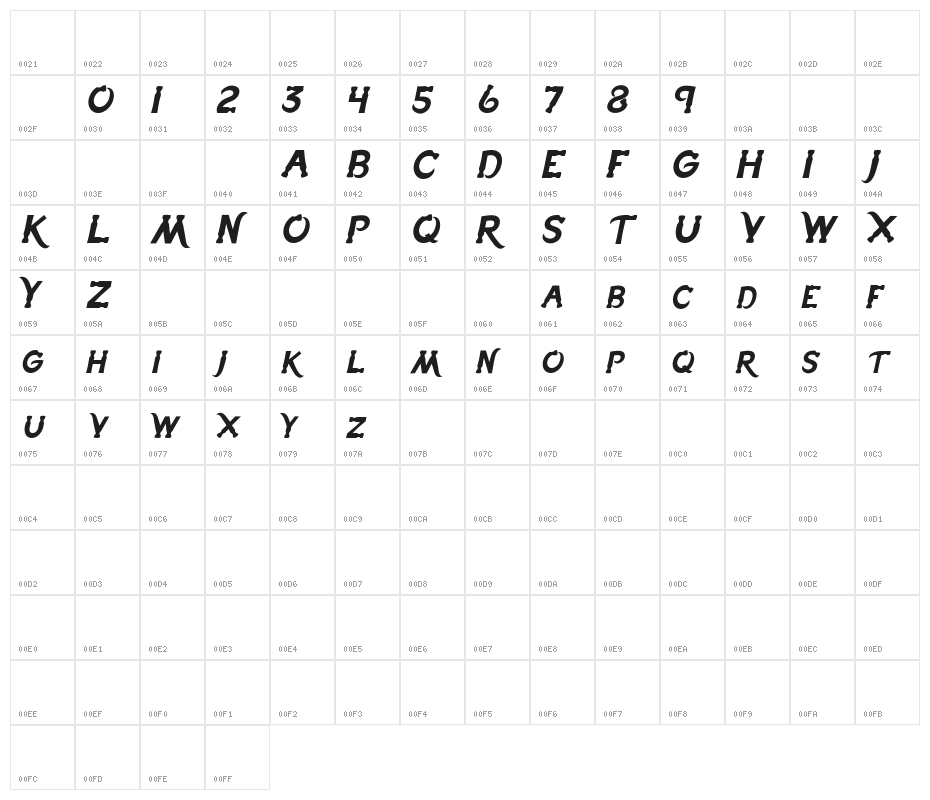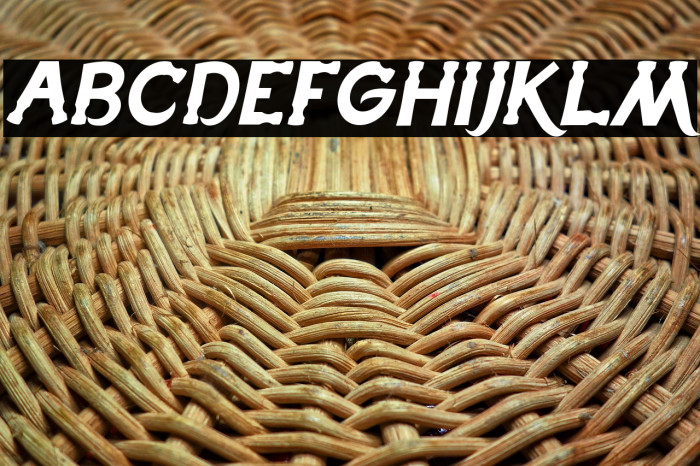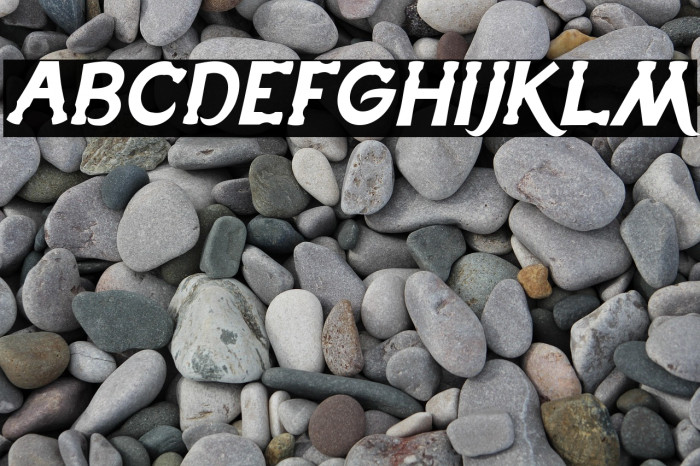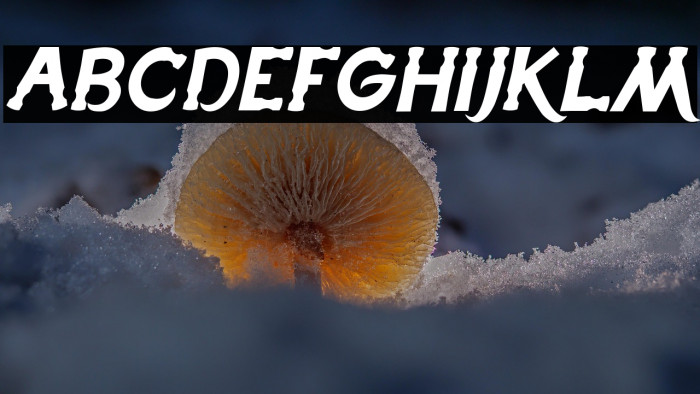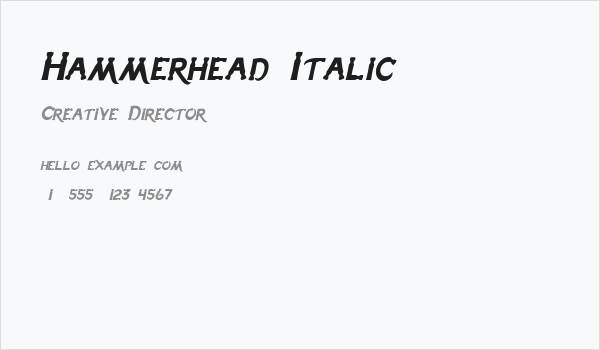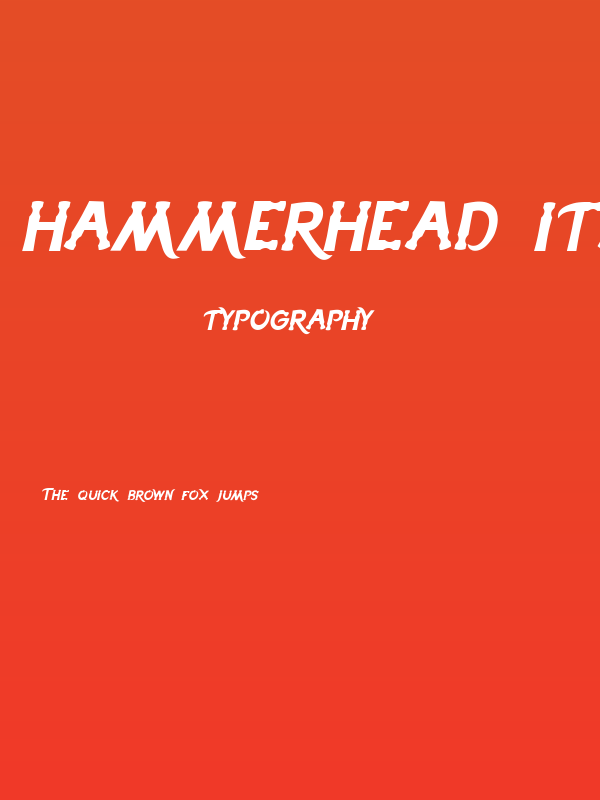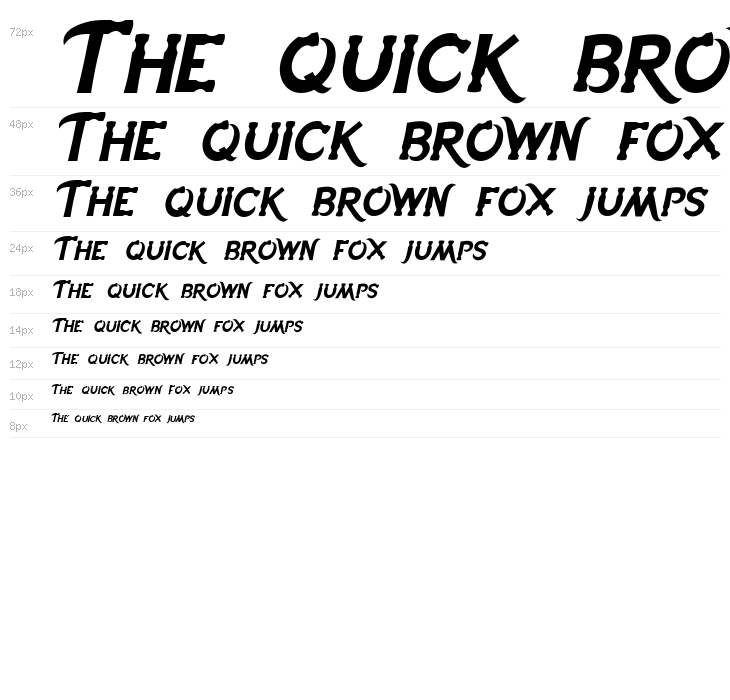
Hammerhead Italic Font
Hammerhead Italic Description
This font features a bold and dynamic style with a strong italic slant, giving it a sense of movement and energy. The characters have a unique, slightly aggressive appearance with sharp edges and thick strokes, making it stand out prominently. The uppercase and lowercase letters maintain a consistent style, with the uppercase letters exhibiting a more pronounced flair. The numbers are equally bold, ensuring they are easily readable. This font's distinctive look makes it suitable for attention-grabbing designs.
| Proposed Projects | Ideal for sports branding, dynamic posters, and edgy graphic design projects. |